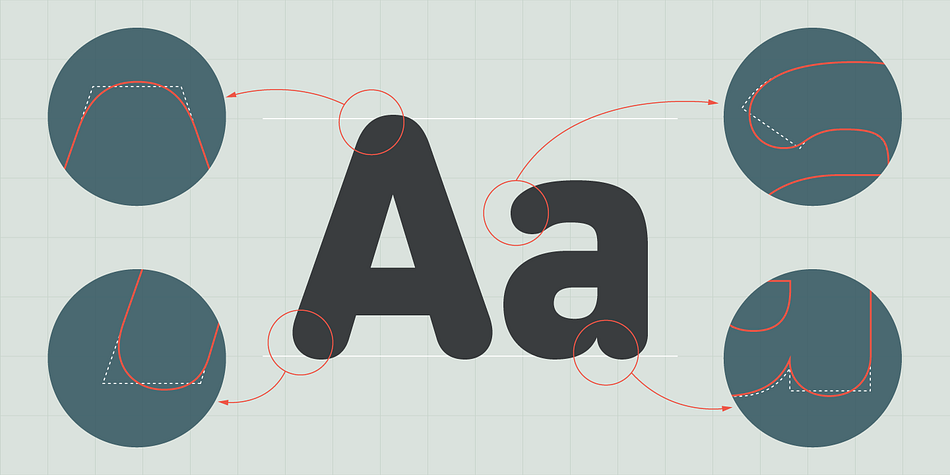
DIN 2014 Rounded
Designed by Alexander Lubovenko, Isabella Chaeva and Vasily Biryukov, DIN 2014 Rounded is a sans serif font family. This typeface has seven styles and was published by ParaType.
DIN 2014 Rounded is an extension of the industrial sans serif DIN 2014. It combines the softness and friendliness of the rounded endings with the seriousness and stability of the original typeface. Not a typical childish rounded font. DIN 2014 Rounded works well for medical or architectural topics, headings on the web or in periodicals, brand identity, packaging, and, thanks to the DIN proportions, for signage. DIN 2014 Rounded includes six styles ranging from extra light to extra bold, corresponding to the upright styles of DIN 2014, as well as a variable version. The typeface supports all European languages based on Latin, Cyrillic, and Asian Cyrillic (Tatar, Kazakh, Kyrgyz and other languages). Designed by Isabella Chaeva and Alexander Lubovenko.
Foundry ParaType
Designers Alexander Lubovenko, Isabella Chaeva, Vasily Biryukov